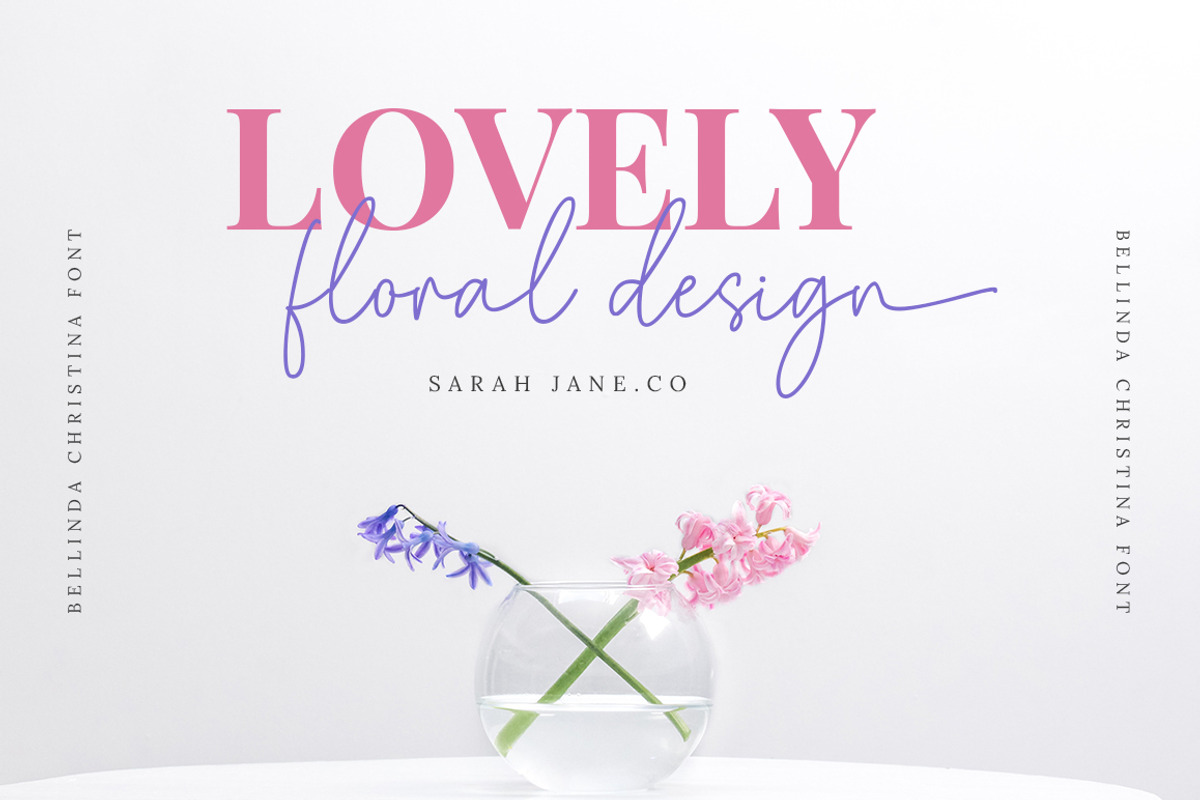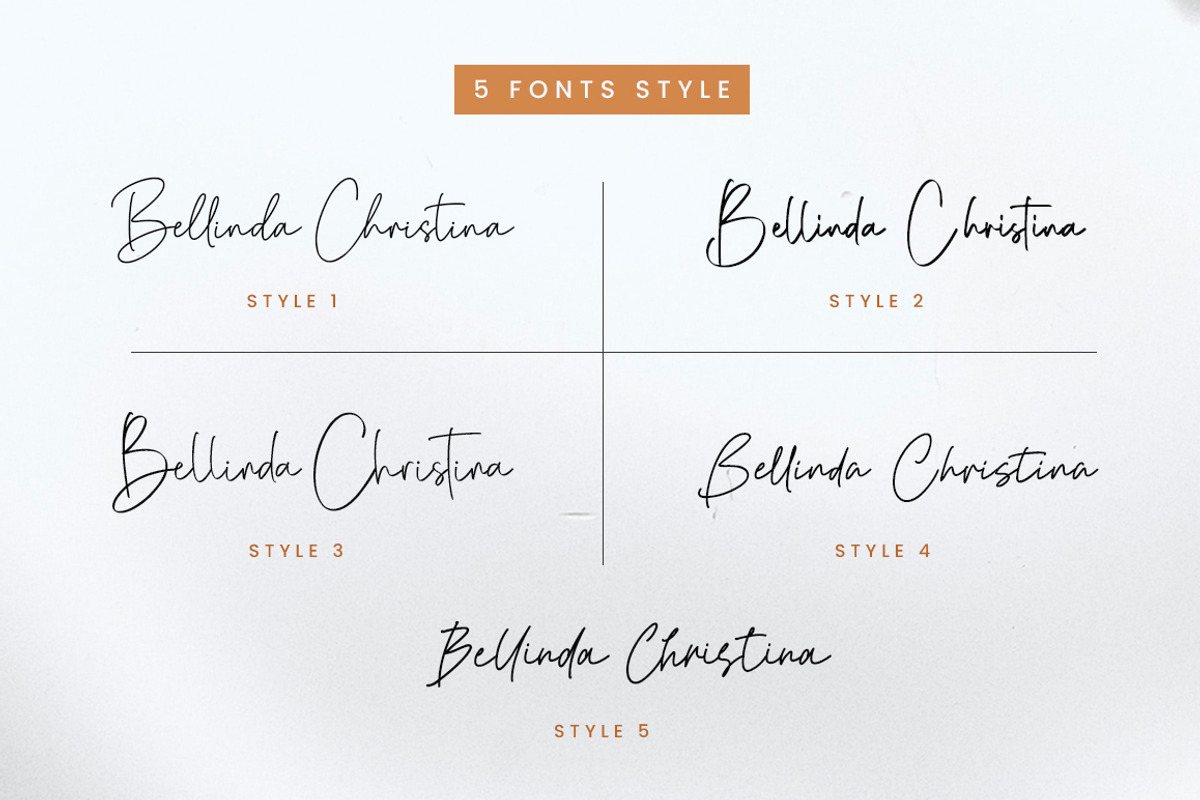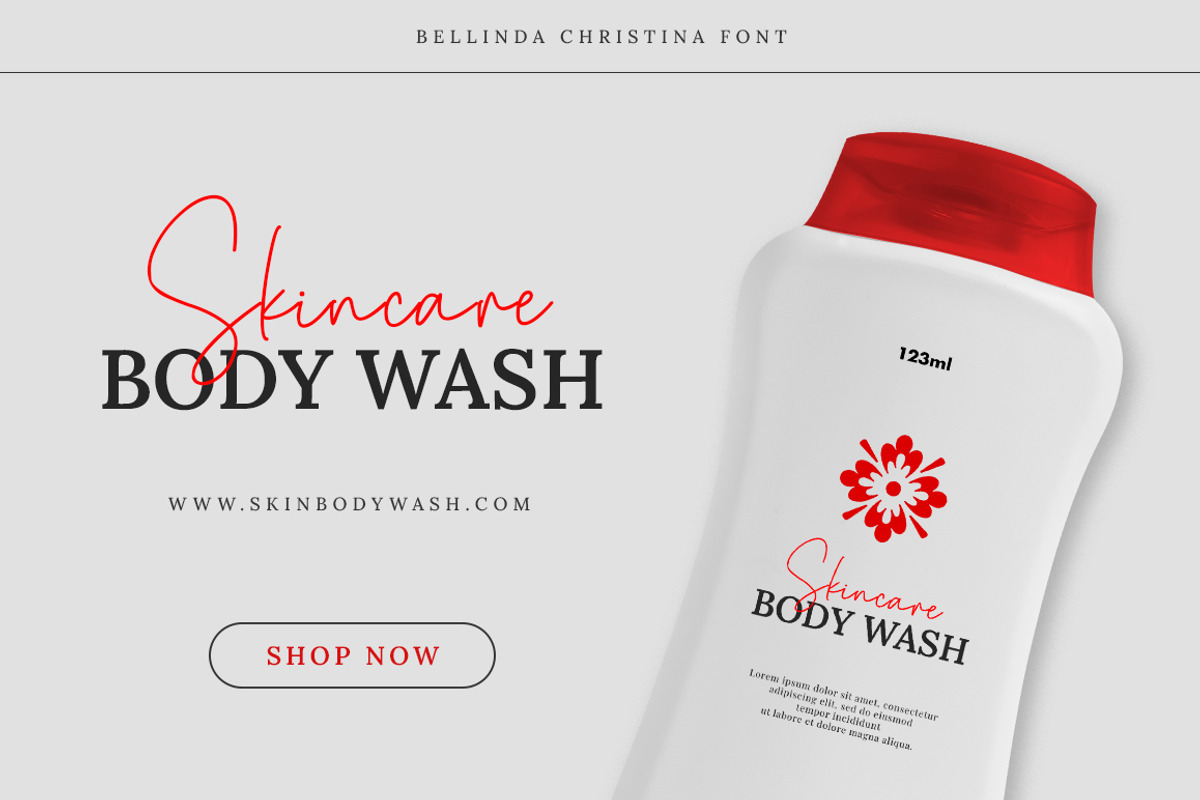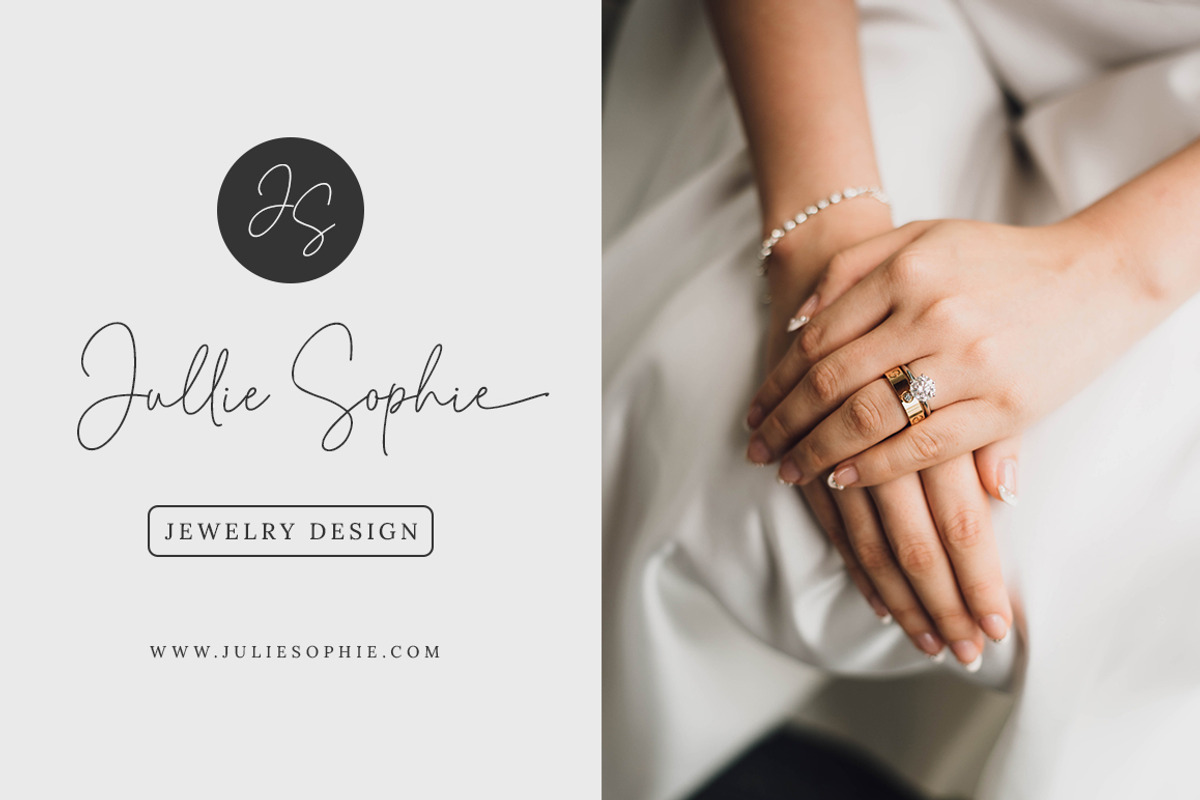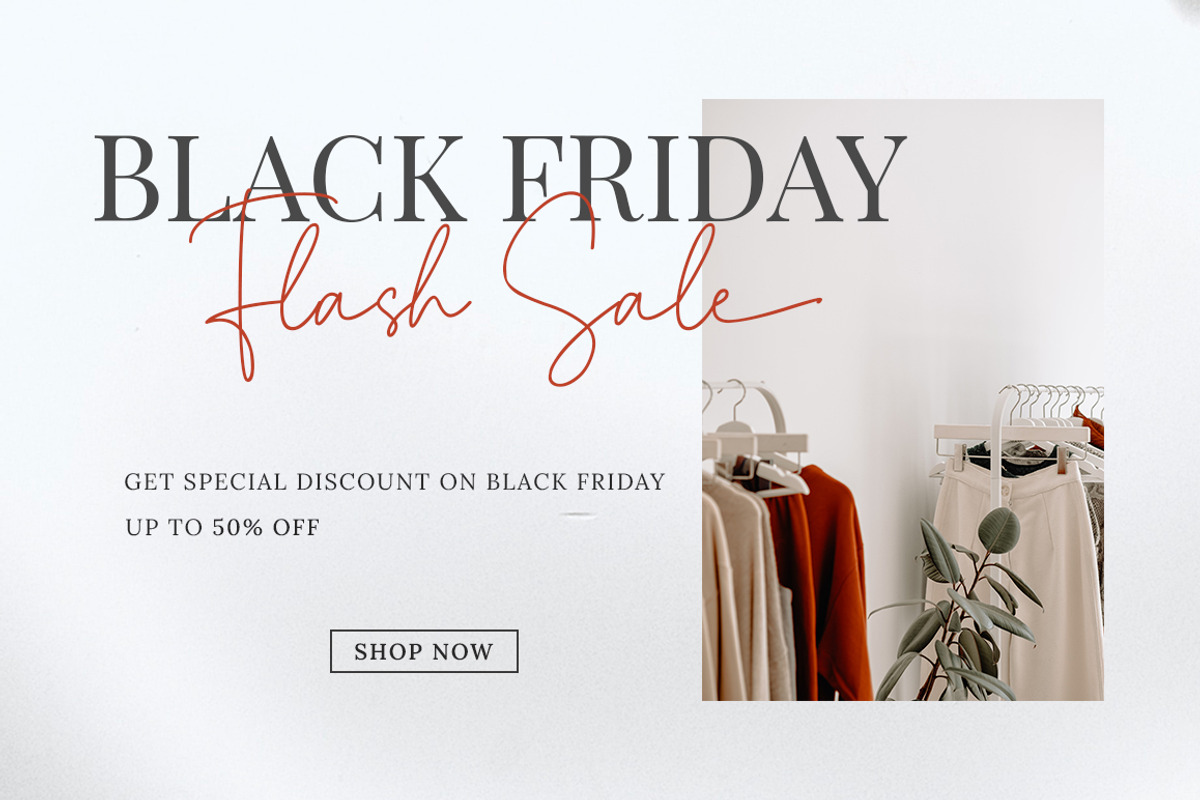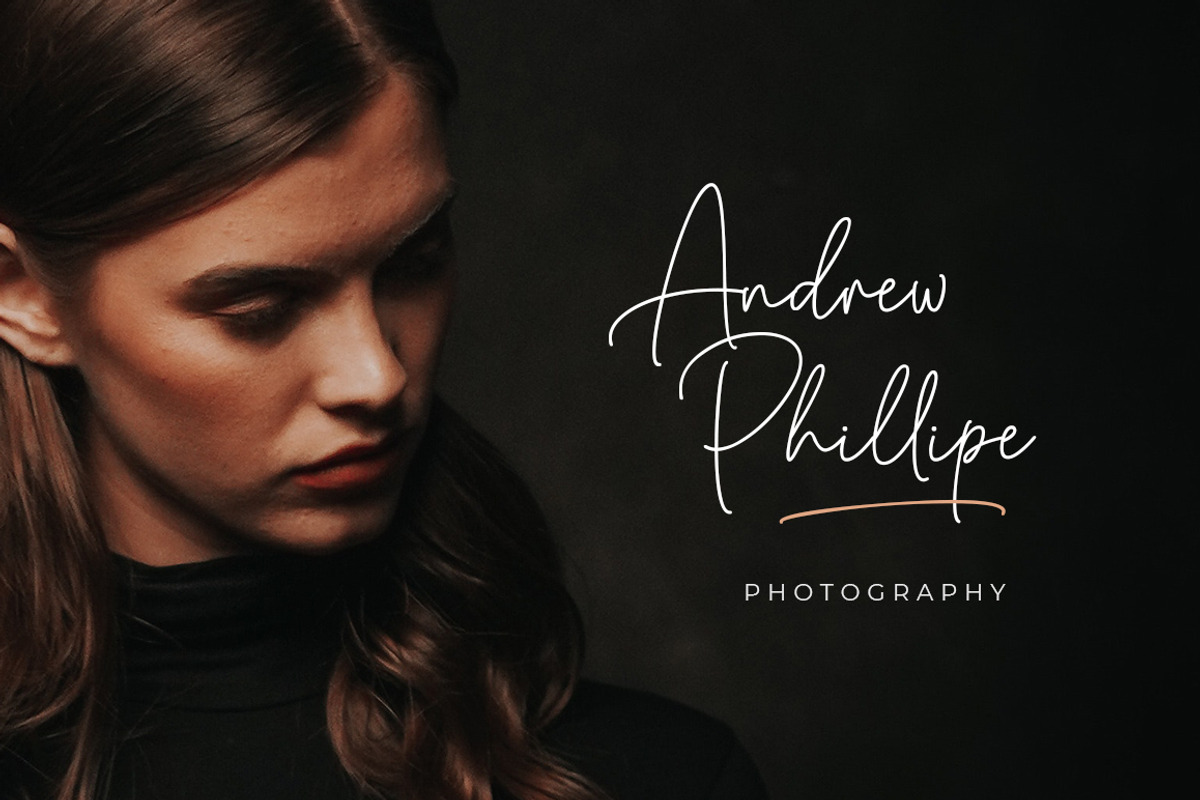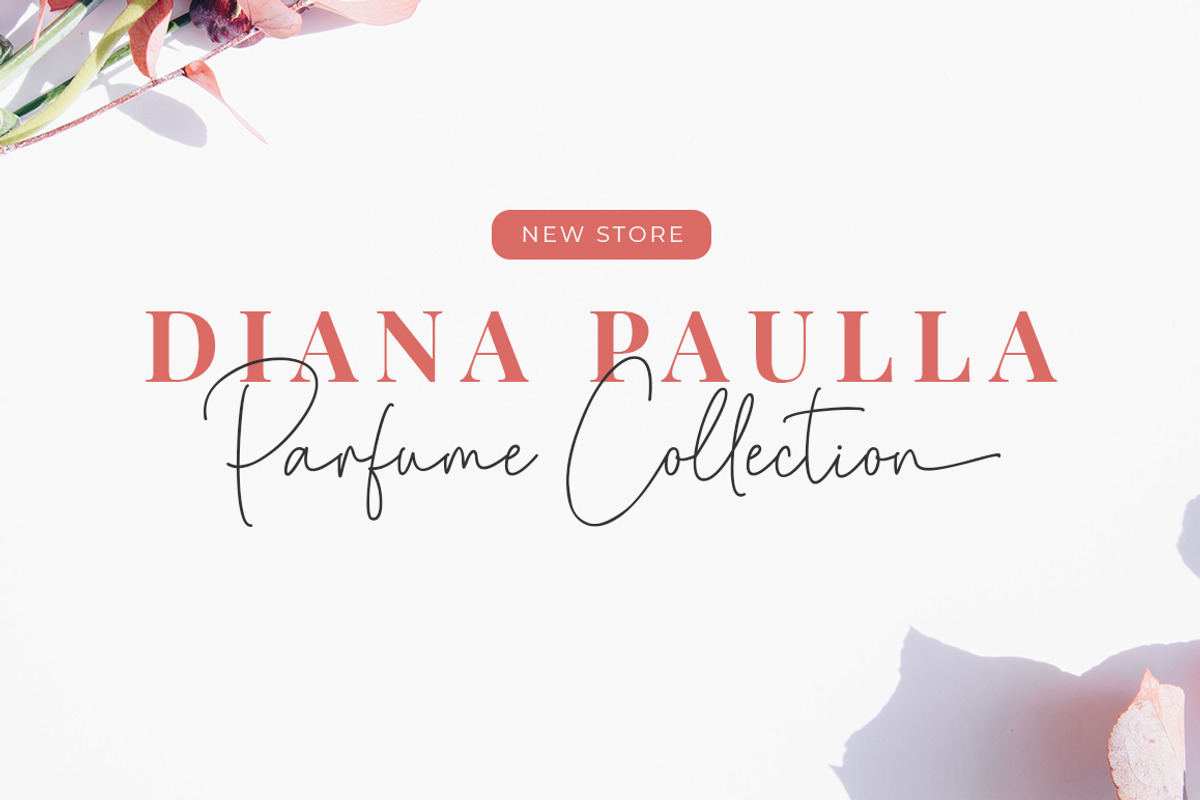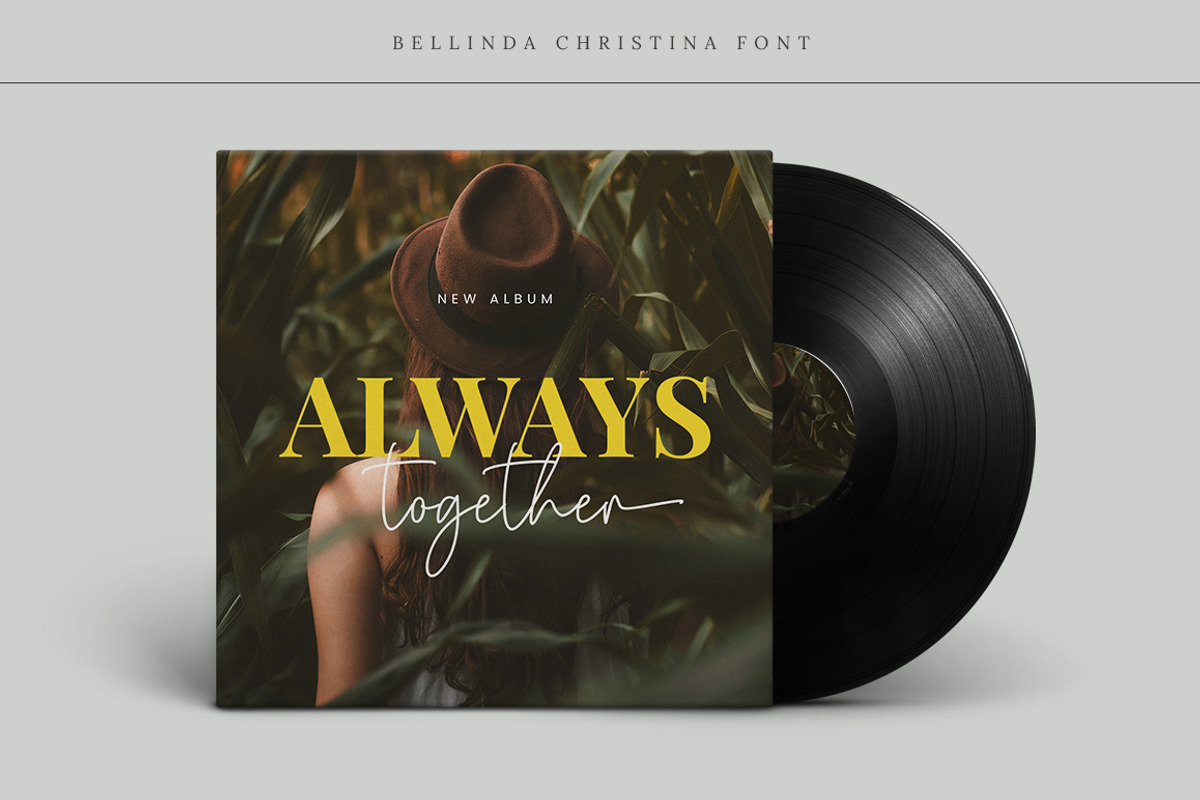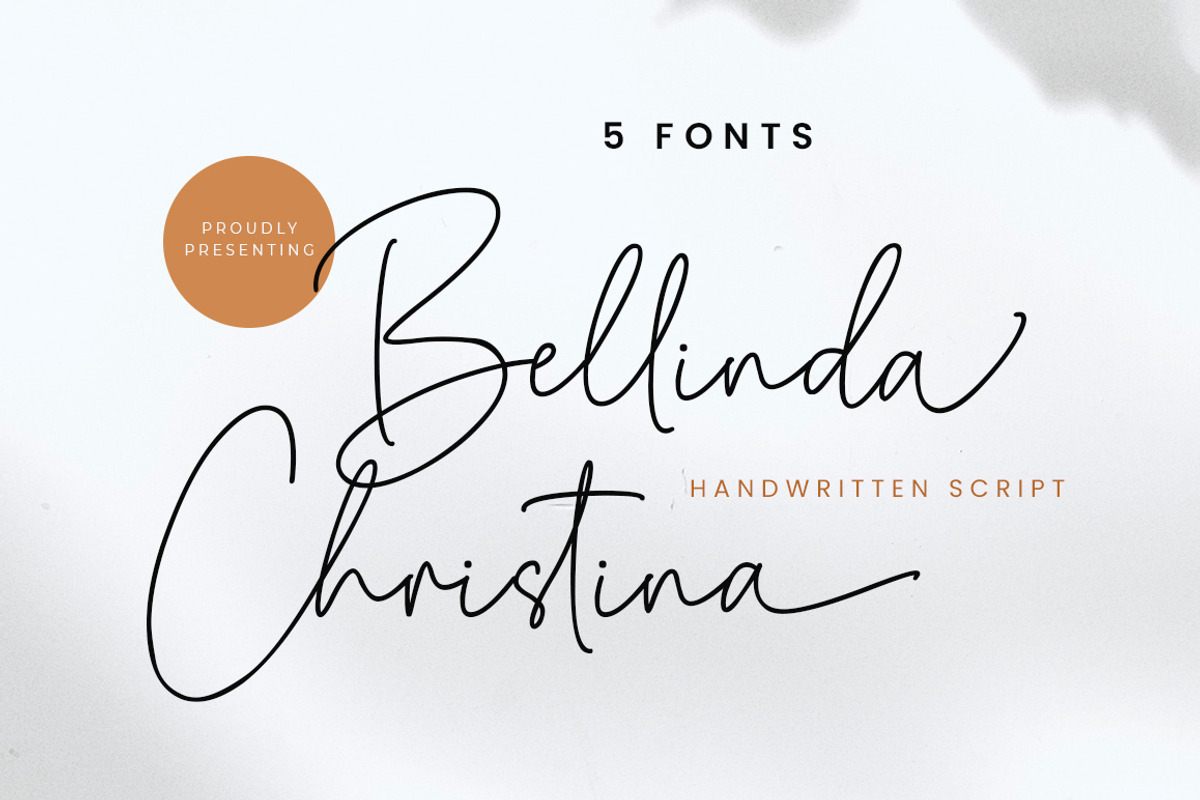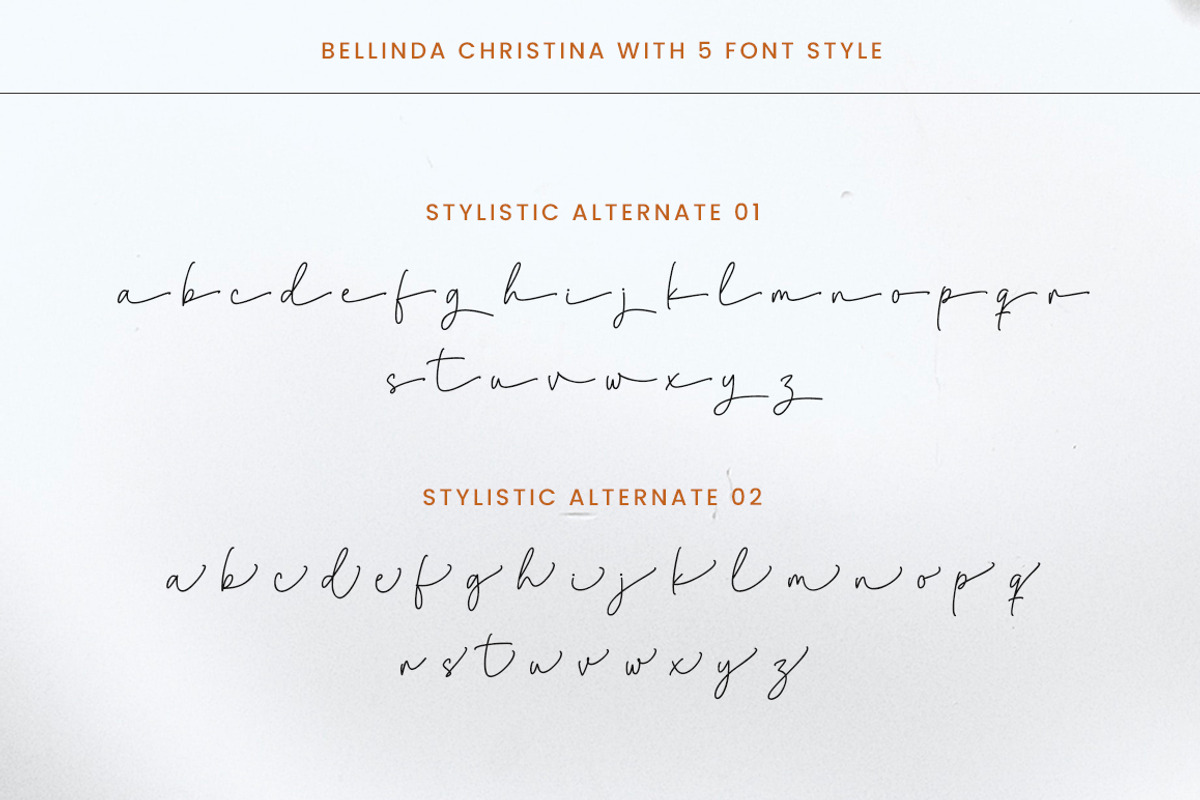
Bellinda Christina + 5 Font Style
Introducing Bellinda Christina - 5 Font Style
Bellinda Christina is inspired by classic typography and brings its own unique style to any design project. Comes with 5 variations, whether you’re looking for fonts for Social media post or calligraphy scripts for DIY projects, this handwritten font will turn any creative idea into a true piece of art!
This font is great for signature logos, business cards, photography watermarks, wedding invitations, product design, fashion, branding, magazines, and much more.
Ligature
Stylistic Set
Swash